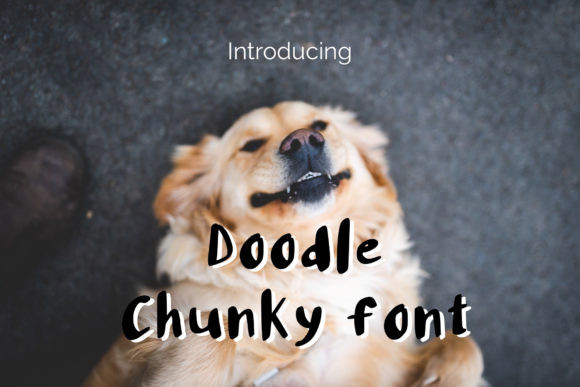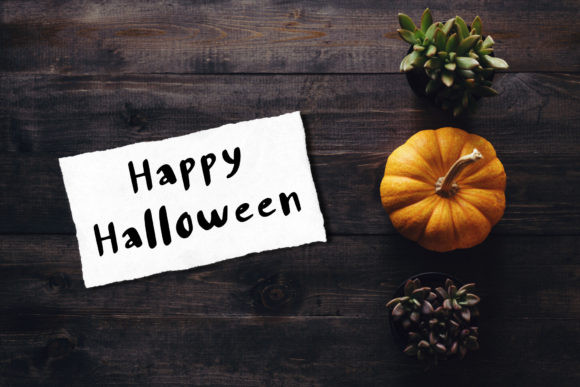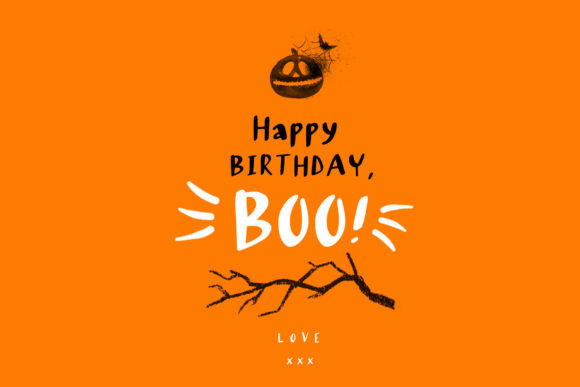
Doodle Chunky Font
Doodle Chunky is a sweet and friendly handwritten font. Its natural and unique style makes it incredibly fitting to a large pool of designs. The only limit is your imagination!